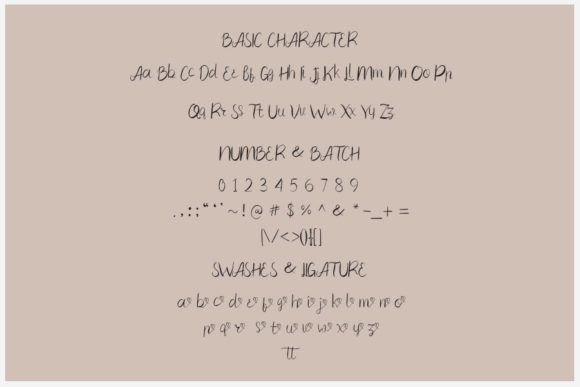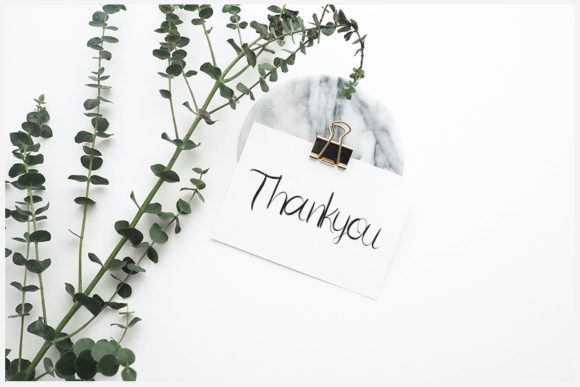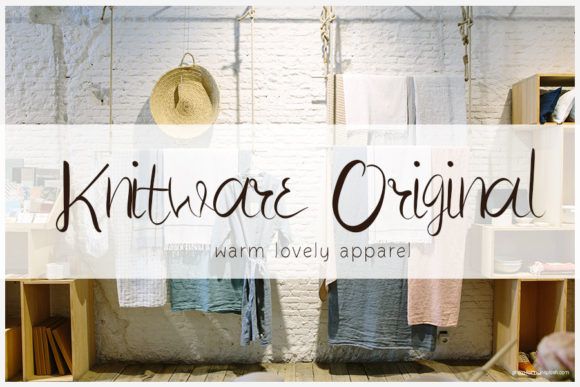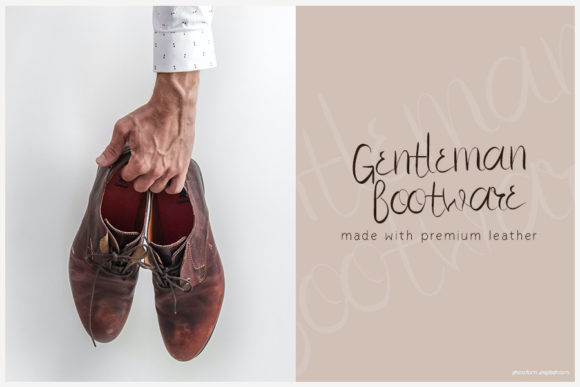
Introducing Flower Love Font: Elevate Your Designs with Elegance and Sophistication
Are you a designer or crafter looking for a font that exudes refinement and luxury? Look no further than Flower Love Font, a chic and sophisticated script font that is sure to elevate your designs to the next level. With its stylish alternates and ligatures, Flower Love Font is the perfect match for any project that requires a touch of elegance and poise.
What is Flower Love Font?
Flower Love Font is a beautifully crafted script font that is designed to add a touch of sophistication and glamour to any design. Its refined and elegant lettering makes it perfect for use in a variety of projects, from wedding invitations and stationery to branding and packaging.
Key Features of Flower Love Font
- Stylish Alternates: Flower Love Font comes with a range of stylish alternates that allow you to add a touch of personality to your designs. From subtle variations to more dramatic flourishes, these alternates give you the flexibility to create unique and eye-catching designs.
- Ligatures: The font also features a range of ligatures that allow you to connect letters and create a more fluid, natural look. This is perfect for creating elegant and refined designs that require a high level of sophistication.
- Refined Lettering: Each letter in Flower Love Font has been carefully crafted to ensure that it is refined and elegant. The font features beautiful swashes and flourishes that add a touch of luxury to any design.
Why Choose Flower Love Font?
There are many reasons why Flower Love Font is the perfect choice for designers and crafters. Here are just a few:
- Versatility: Flower Love Font is incredibly versatile and can be used in a wide range of projects, from digital designs to print materials.
- Elegance: The font’s elegant and refined lettering makes it perfect for creating sophisticated and luxurious designs.
How to Use Flower Love Font
Using Flower Love Font is easy. Here are a few tips to get you started:
- Pair it with Other Fonts: Flower Love Font looks great when paired with other fonts. Try pairing it with a bold sans-serif font for a striking contrast.
- Experiment with Alternates: Don’t be afraid to experiment with the font’s alternates and ligatures. This is a great way to add personality to your designs and create something truly unique.
- Use it for Headings: Flower Love Font is perfect for use in headings and titles. Its elegant and refined lettering makes it ideal for creating eye-catching and sophisticated designs.
| Font Name | Flower Love Font |
| Author | Creassion Studio |
Flower Love Font is a beautiful and sophisticated script font that is perfect for designers and crafters who want to add a touch of elegance and luxury to their designs. With its stylish alternates and ligatures, refined lettering, and versatility, it’s the perfect choice for any project. So why not give it a try and see how it can elevate your designs to the next level?